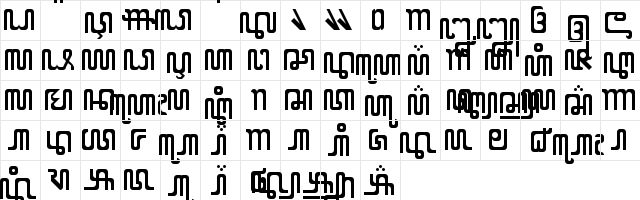
X Code from East Regular
Designer: Adien Gunarta
Year: 2011
Design Context for X Code from East
X Code from East uses fixed-width spacing throughout, giving it the structured, systematic character associated with coding environments and technical documentation.